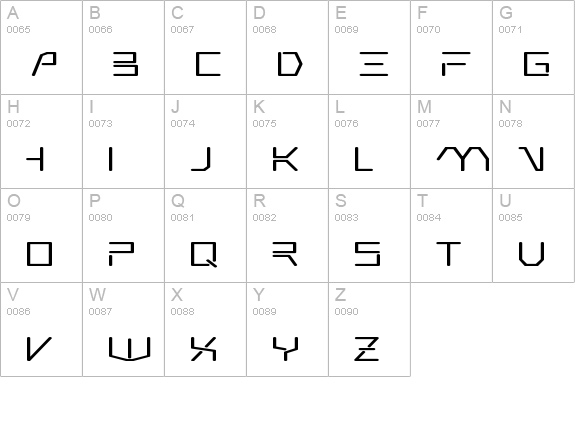
Rsandromed Ex Font Details
Introducing Rsandromed Ex font, a modern and stylish typeface that is perfect for a variety of design projects. This elegant font features clean lines and a sleek aesthetic that will add a touch of sophistication to any project. With its unique design and versatility, Rsandromed Ex font is sure to make a statement. Best of all, Rsandromed Ex font is completely free to download at FontsMarket.com. Whether you're working on a logo, branding materials, or any other design project, this font is a fantastic choice that won't break the bank. Don't miss out on this opportunity to enhance your designs with the beautiful Rsandromed Ex font - download it for free today!